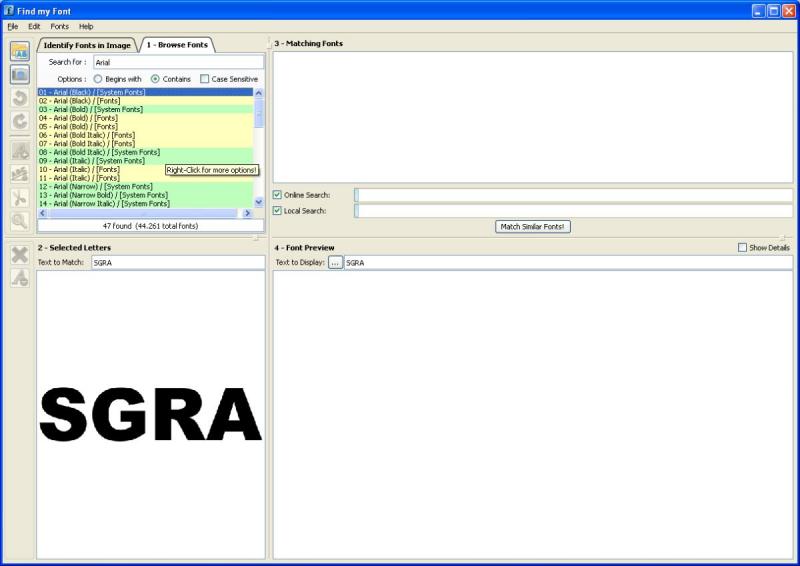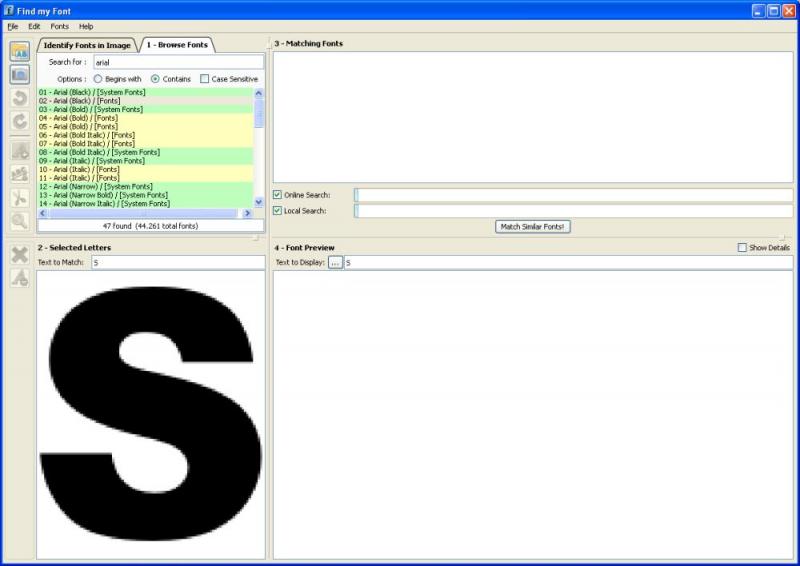
Hey font gods.....i need your help once again....what are the fonts used here. Specifically the "S" and the skinny black text. thanks!
arial black 'S' has perfectly horizontal terminals
Then you must have a rare version of Arial. Either that or it is a re-named Helvetica Black.
Every version of Arial I have ever seen has slanted terminals.
If you can Jhill, post what the "G", "R" and "a" characters look like from your "Arial Black"
yeah wierd I found another arial black made my monotype in my bitstream fontset that has the angled terminals on the S -- I'm not gonna try and replace it however, as it may screw with some older files...too small of a difference for me to worry about...thx for the lesson however :thumb: